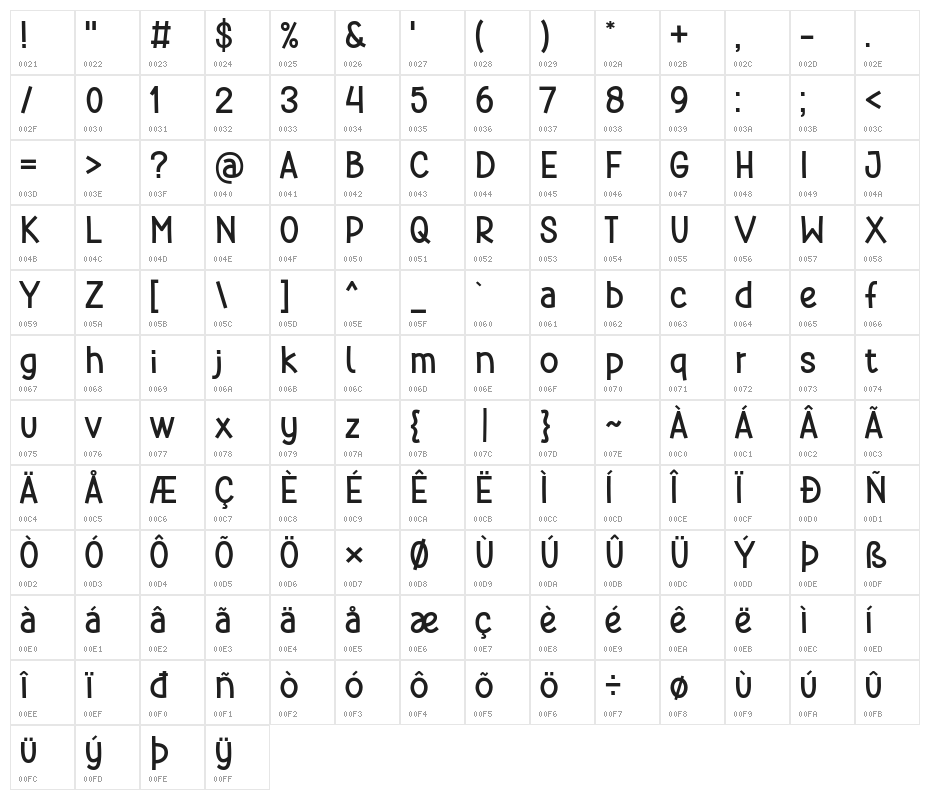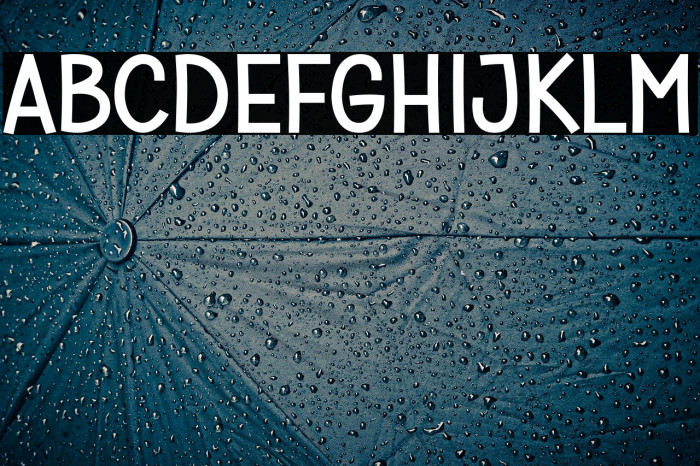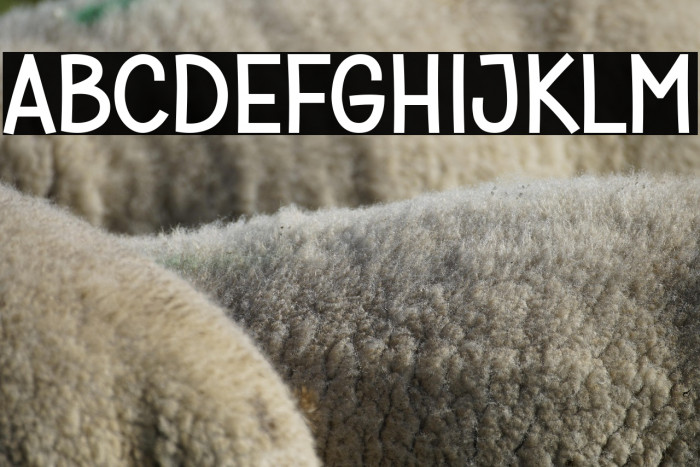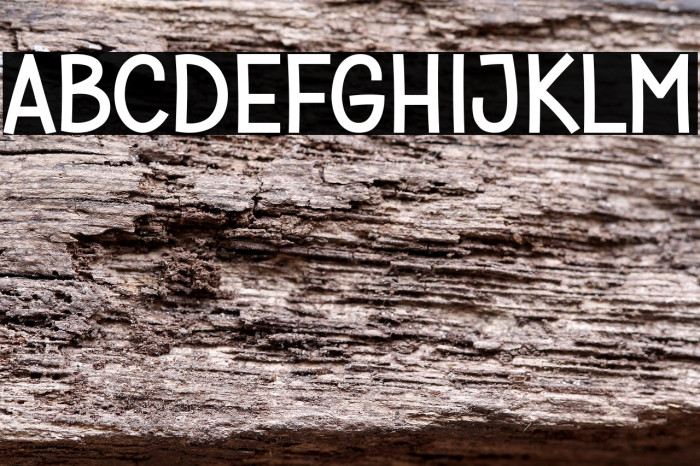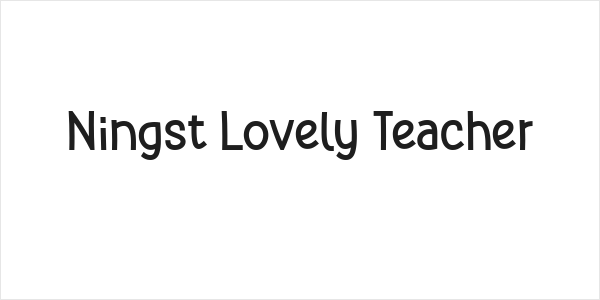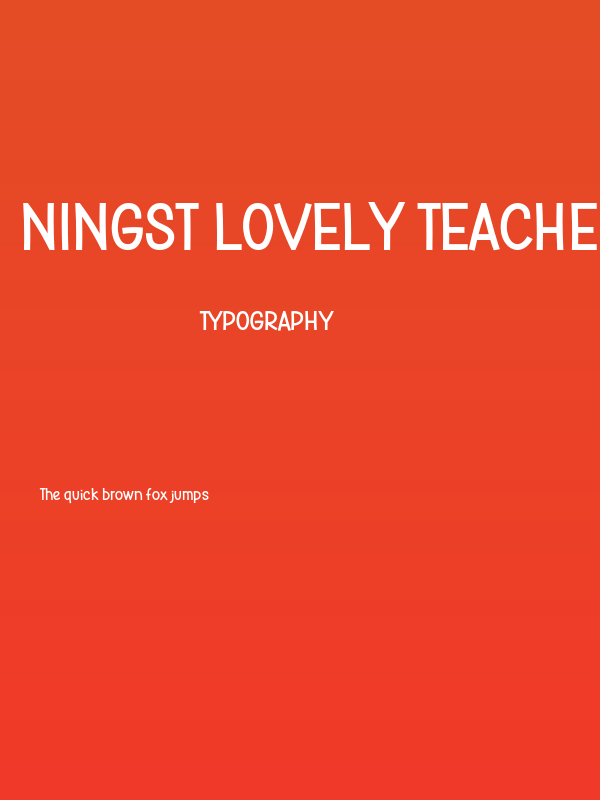
Ningst Lovely Teacher Font
Ningst Lovely Teacher Description
This font features a playful and friendly style with rounded edges and a slightly informal appearance. The characters are bold and have a consistent stroke width, giving them a strong presence. The uppercase letters are tall and slightly narrow, while the lowercase letters maintain a similar width, creating a harmonious balance. The numerals are clear and easy to read, matching the overall style of the alphabet. Special characters are well-integrated, maintaining the font's approachable and casual feel. This font is suitable for projects that require a touch of whimsy and warmth.
| Proposed Projects | Ideal for children's books, playful branding, casual invitations, and educational materials. |